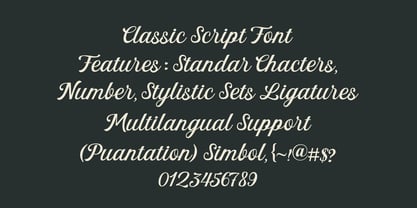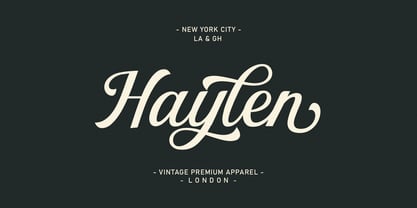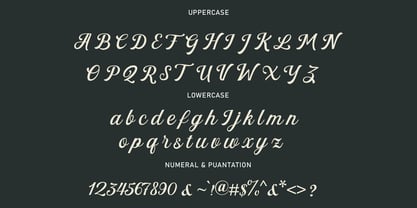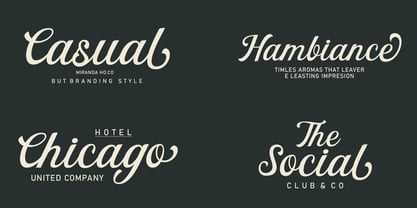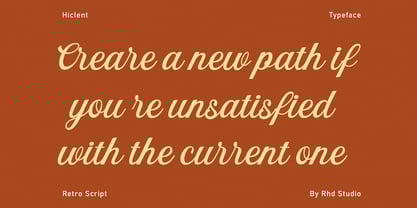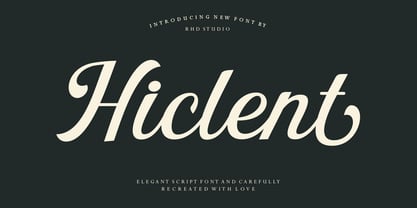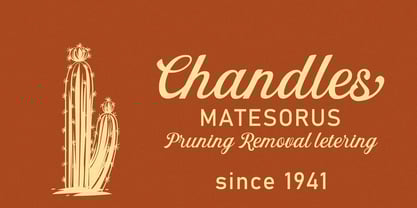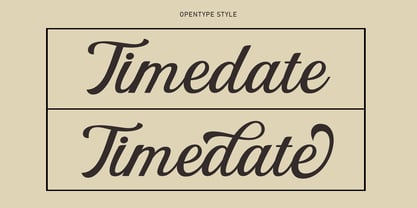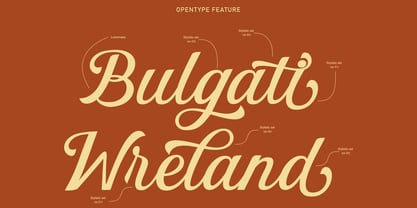
Hiclent Script
by Rhd Studio
The Hiclent Script Font Family was designed by Rahmad Rizky and published by Rhd Studio. Hiclent Script contains 1 styles.
Hiclent – ​​Elegant Script Font Hiclent is an elegant script font with a classic touch that exudes elegance and refinement in every curve of its letters. Designed with love by RHD Studio, Hiclent is perfect for luxury branding, wedding invitations, boutique logo designs, fashion editorials, and even artisan product packaging. This typographic character combines vintage and modern nuances in perfect harmony, making it an ideal choice for design projects that prioritize classy and professional aesthetics.